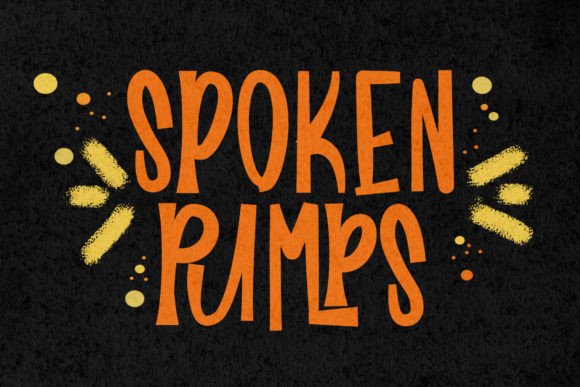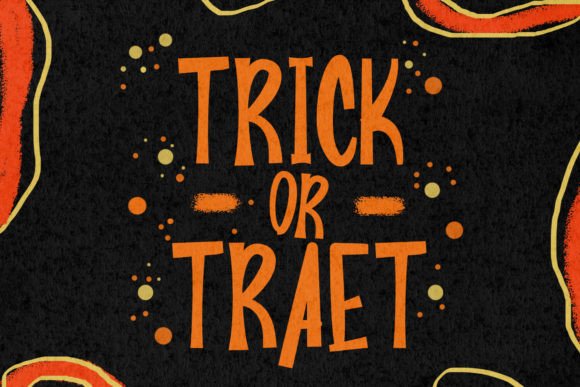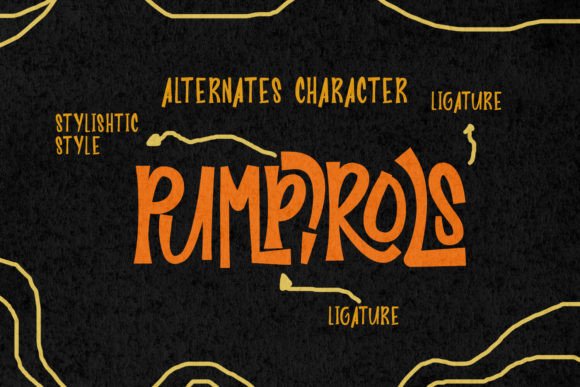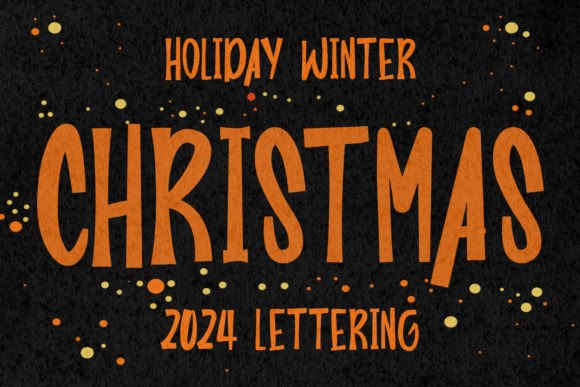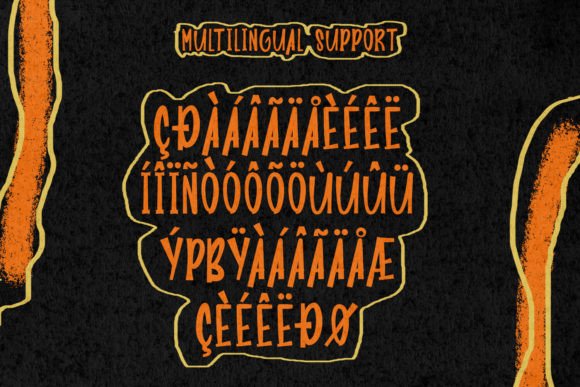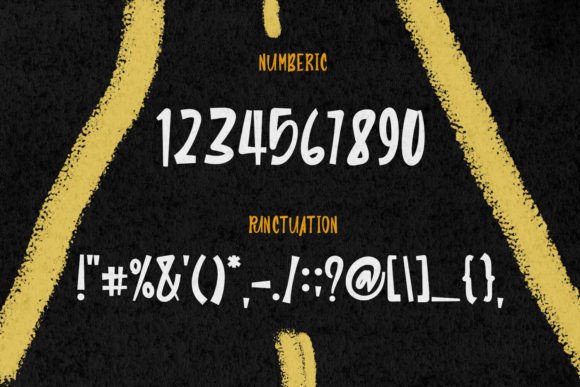
Introduction to Pumpirols Font
Pumpirols is a playful and unique handmade display font.
Its letters have a fun, hand-drawn style, perfect for adding a creative and personal touch to your designs The font stands out with its bold, quirky shapes, making it great for posters, invitations, or any project that needs a cheerful and artistic look.
Key Features of Pumpirols Font